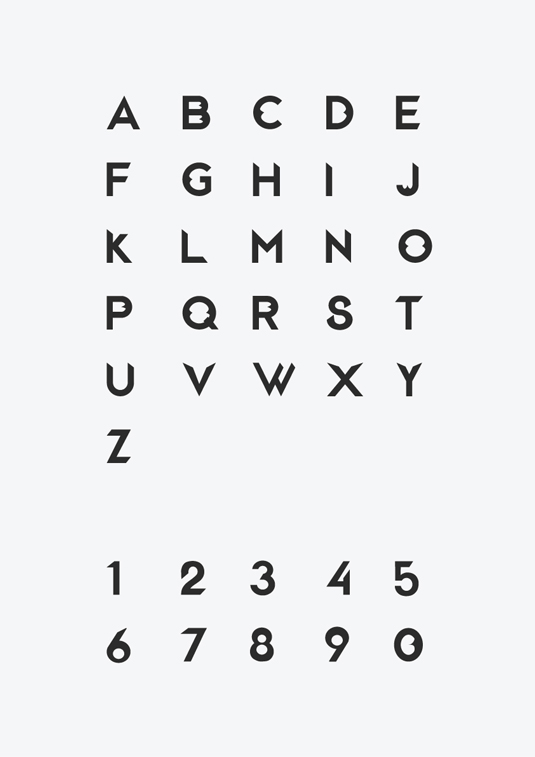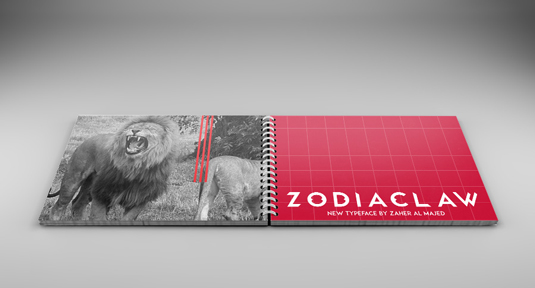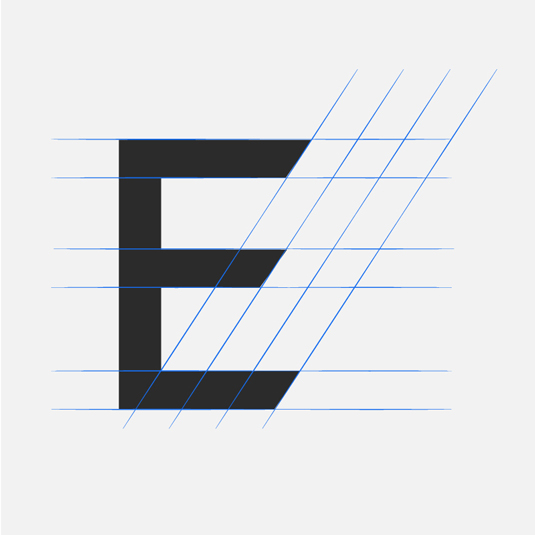
Font of the day: Zodiaclaw
Zodiaclaw by Zaher Almajed
Today's typeface of choice, Zodiaclaw, was created by art director Zaher Almajed. Inspired by lions claws, Almajed designed the font for 'those who want to be different'.
Almajed comments on Behance: "With some old classic European touches, Zodiaclaw is a humanist typeface that's based on traditional calligraphic forms, but with some new features in its shapes and strokes that provide a more open, elegant look."